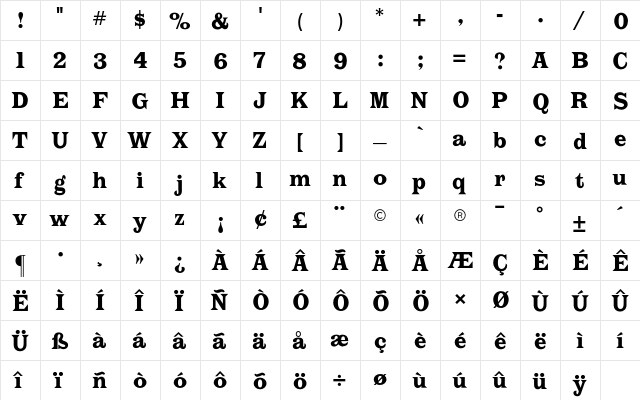
Latin CG Bold Regular
| Foundry | Agfa Corporation |
Design Context for Latin CG Bold Typeface
Latin CG Bold is a composed and adaptable typeface that performs quietly and consistently across a wide range of design contexts. Its bold stroke weight gives it real presence on the page.